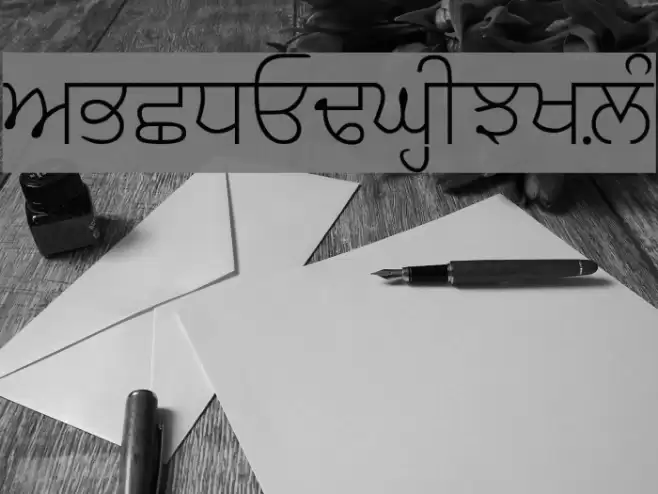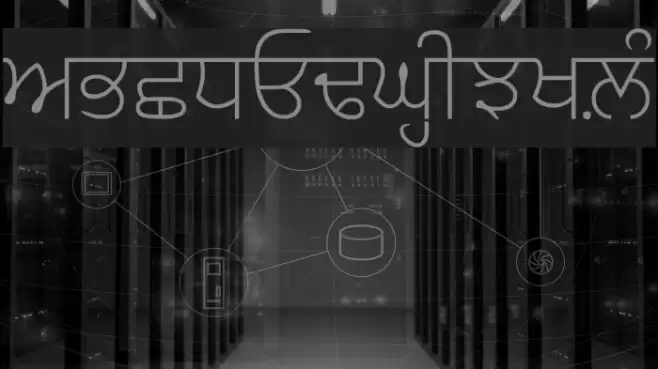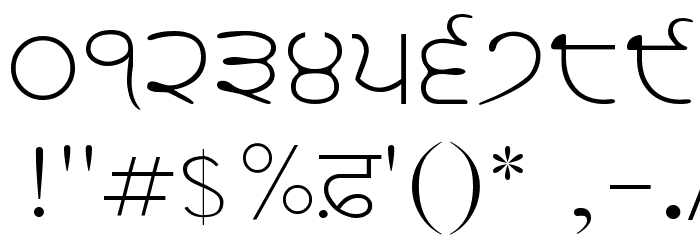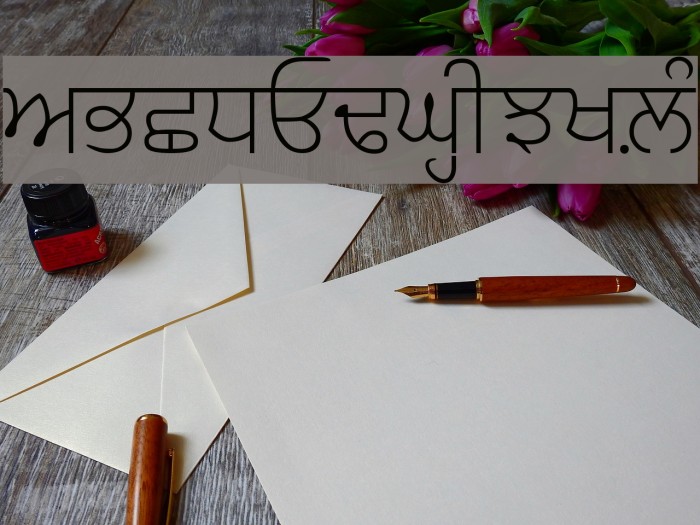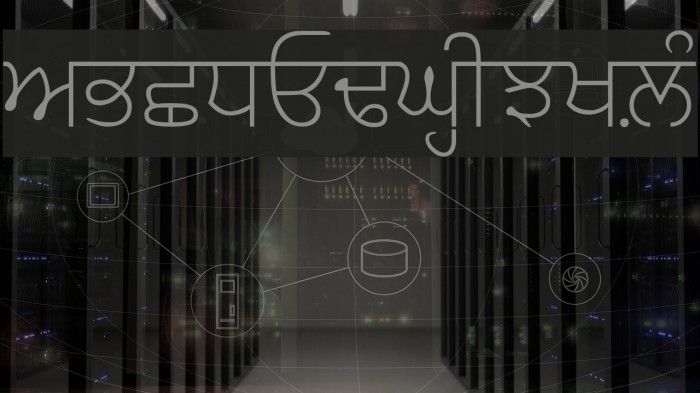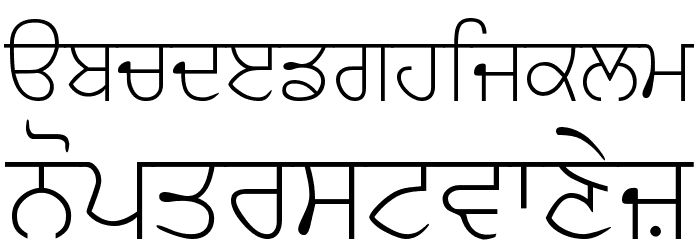
GurbaniAkharSlim Font
GurbaniAkharSlim Description
This font features a unique and elegant script style, characterized by its flowing curves and intricate details. The characters are designed with a high level of precision, showcasing a blend of traditional and modern elements. The strokes are smooth and consistent, with a medium contrast that adds to its readability. The overall appearance is sophisticated, making it suitable for both formal and creative applications. The font includes a full set of characters, numerals, and a variety of special symbols, ensuring versatility in its use.
An elegant script font with flowing curves and medium contrast from Asian fonts.
- Proposed Projects: Ideal for wedding invitations, formal documents, branding, and artistic projects.
- Overall Style: Elegant and sophisticated
- Use Case: Headlines, Invitations, Artistic projects